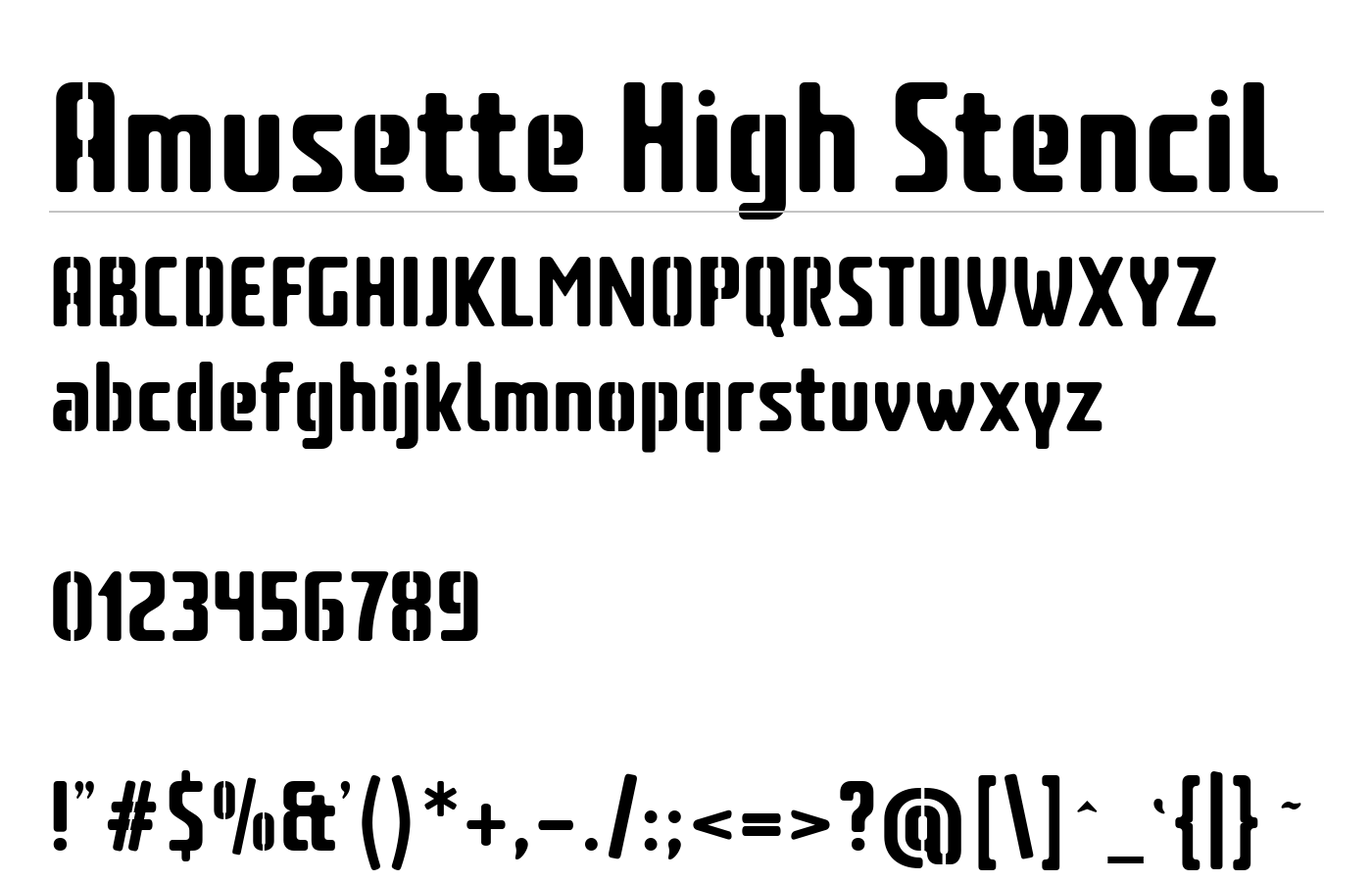
Amusette High Stencil is a bold, condensed sans serif font with a distinctive stencil design characterized by consistent breaks in each character, offering a modern industrial look. Its uniform stroke weight and tall x-height create a strong, legible presence, making it ideal for impactful headlines, logos, and branding that require a bold and edgy personality. This font works well in contexts where clear visibility and a contemporary, mechanical style are desired, such as packaging, posters, and urban-themed designs.
Amusette High Stencil Font
About Amusette High Stencil Font
| Designer | Yves Michel |